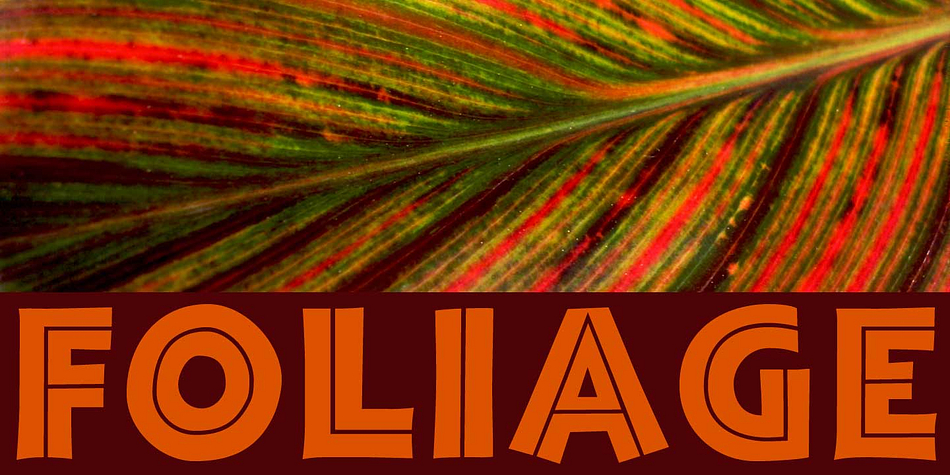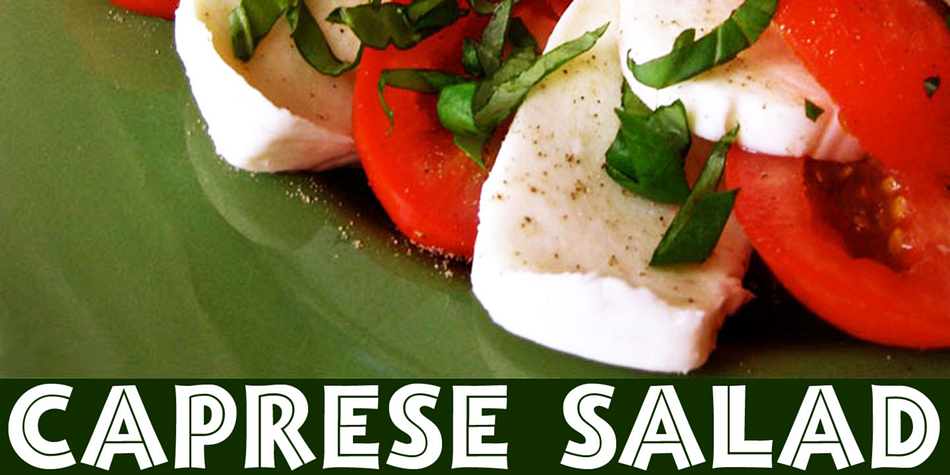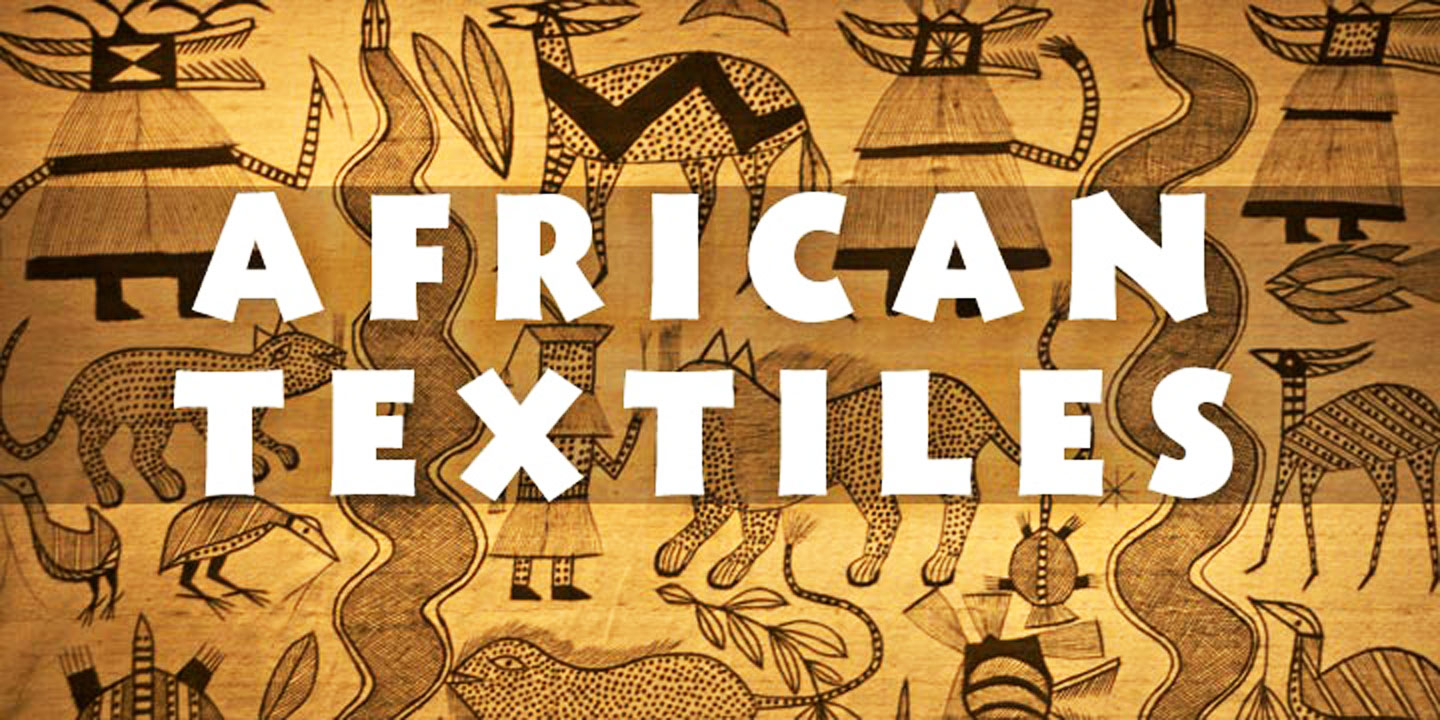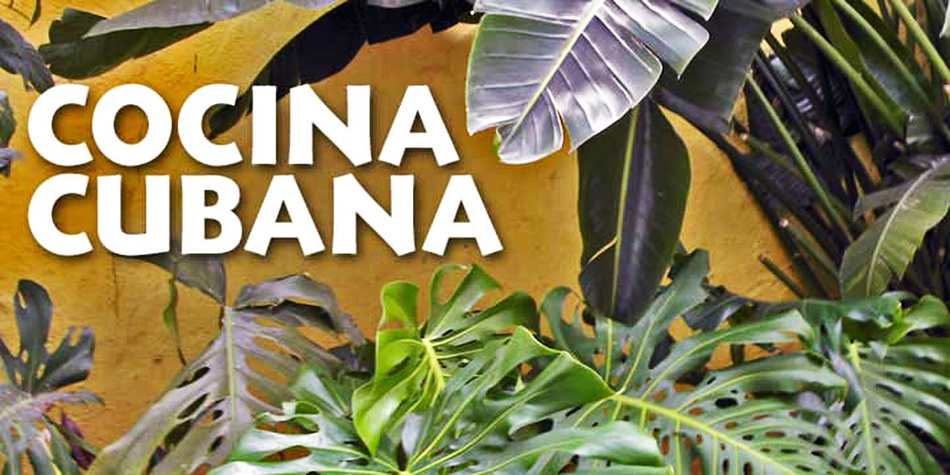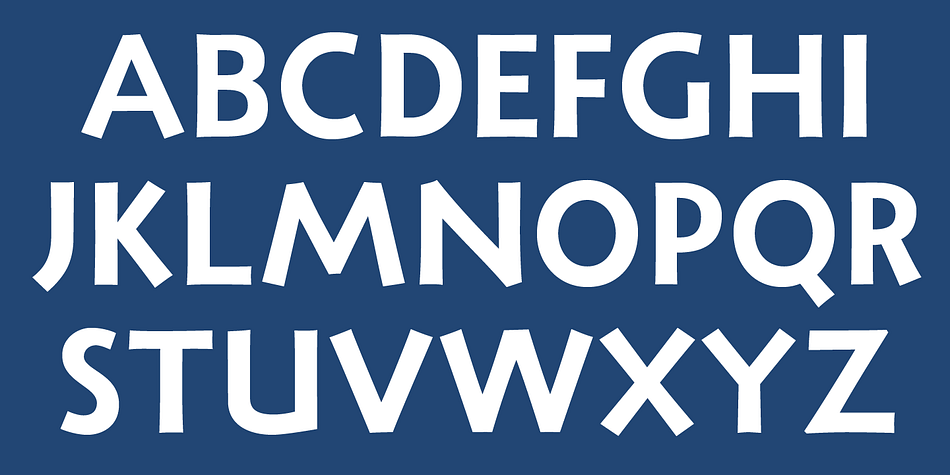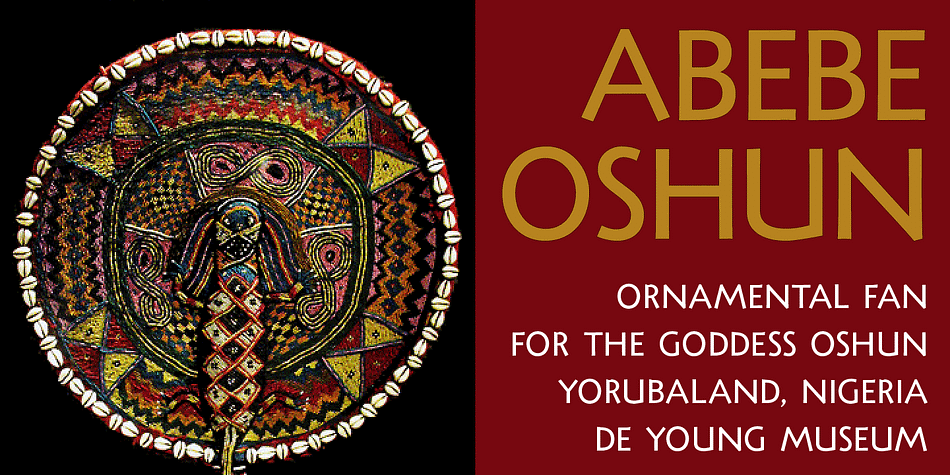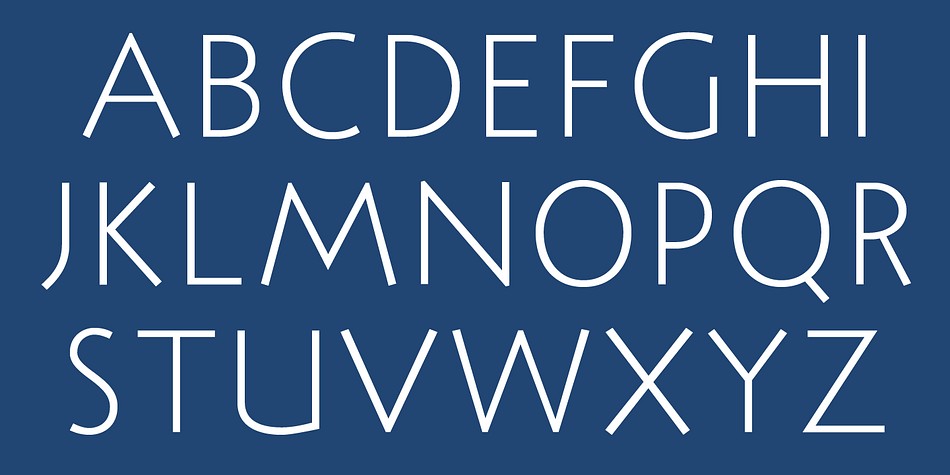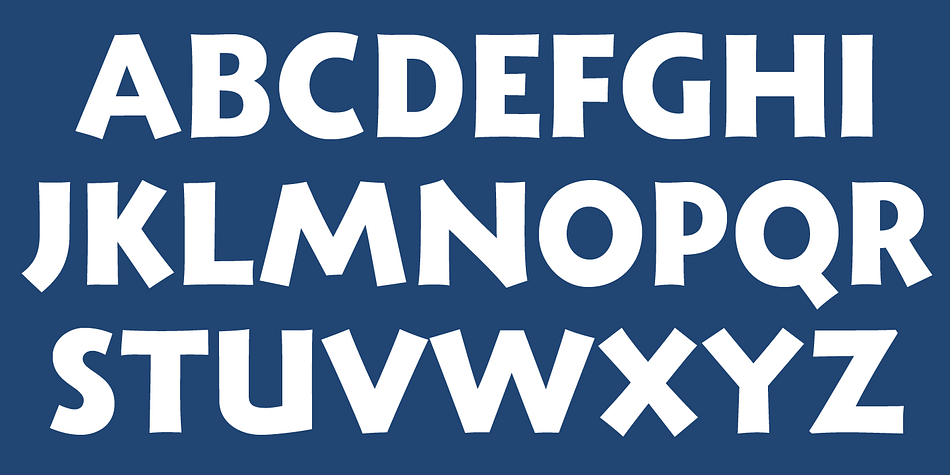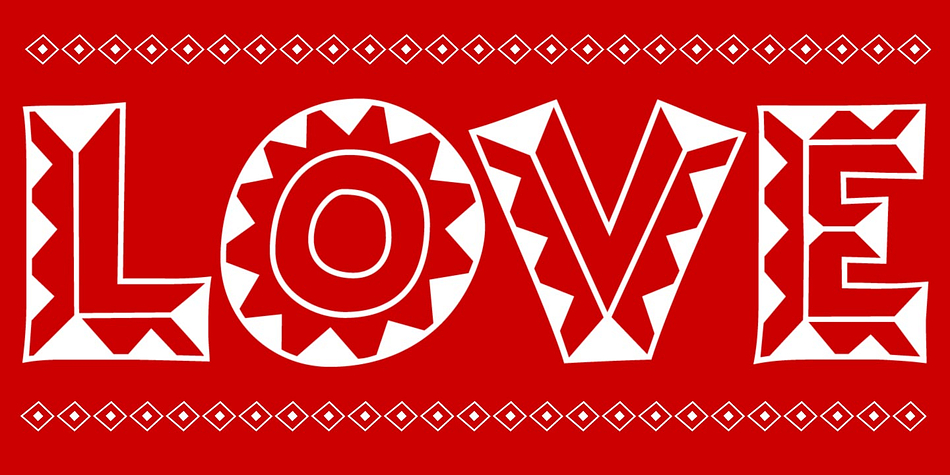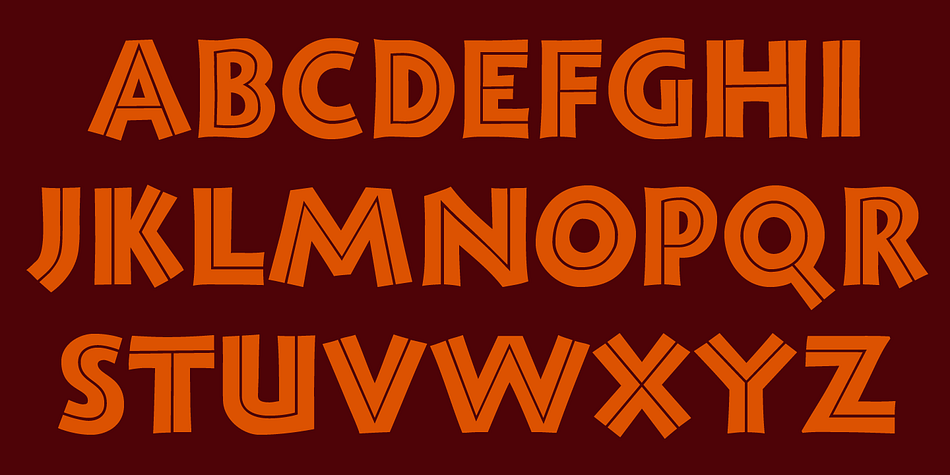
Tambor is a display and display sans font family. This typeface has seven styles and was published by CastleType.
Over the years I have bought many books and music CDs in persuit of my passion for African and Latin (and especially Afro-Latin) cultures. I’ve noticed that a great number of these books and CDs feature either of two popular display fonts that are, in my opinion, very much overused. As an alternative, I designed TamborTM. The Tambor family includes seven styles.